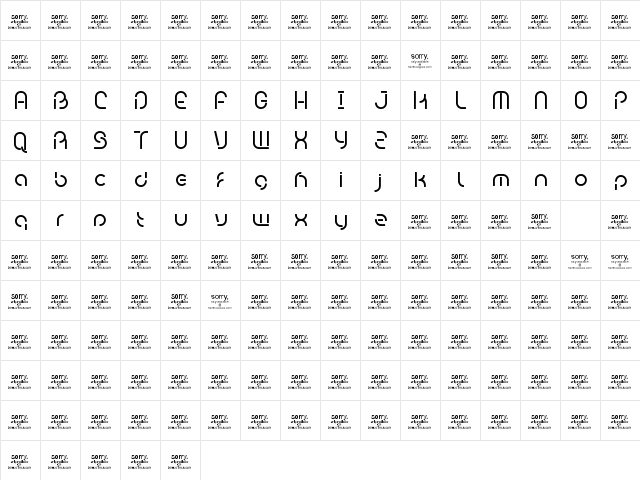
Bambhout_trial Regular
| Foundry | bambootypes |
| Designer | Florian Bambhout |
Design Context for Bambhout_trial Typeface
Bambhout_trial is a composed and adaptable typeface that performs quietly and consistently across a wide range of design contexts.